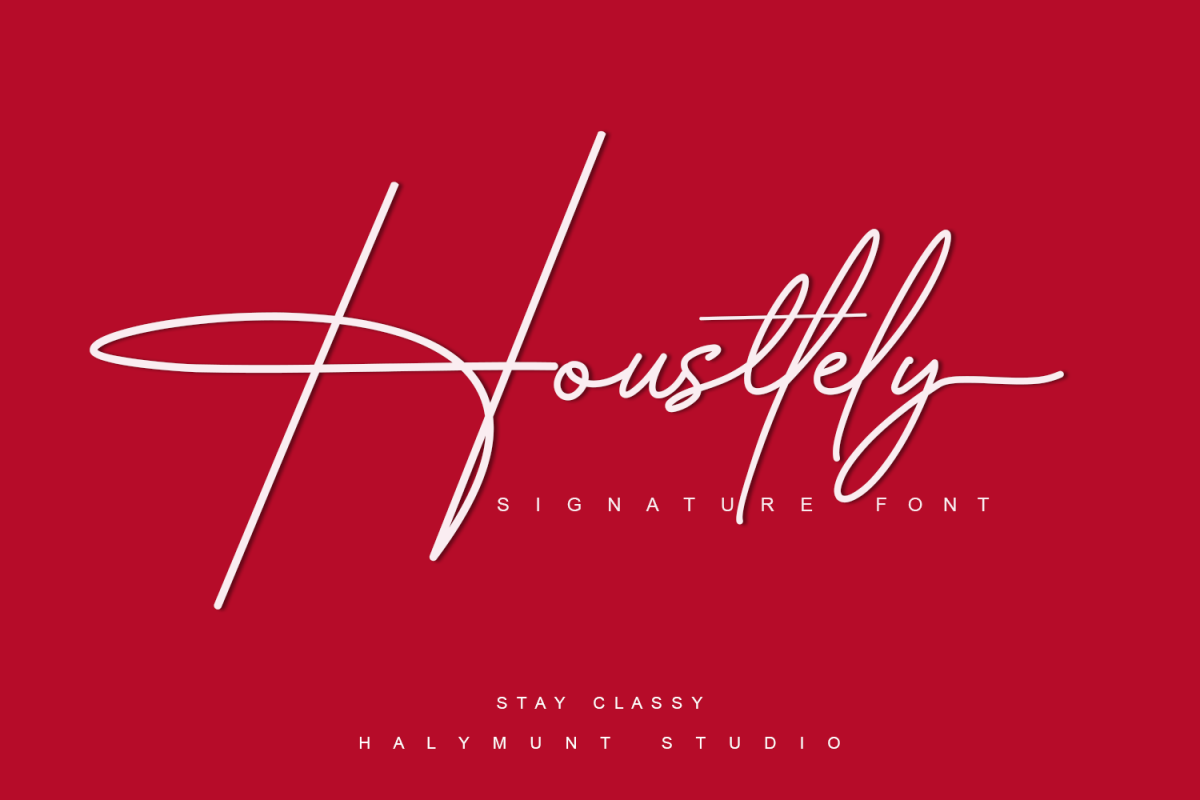
Housttely Signature
Housttely Signature: is a beautiful monoline signature font. It has a natural writing style and modern will add a classy touch to your designs.
Housttely Signature:
is perfect for branding projects, logo, wedding designs, social media posts, advertisements, product packaging, product designs, label, photography, watermark, invitation, stationery, and any projects that need handwriting taste.
• More than 280 of glyphs
• Tons of Ligature